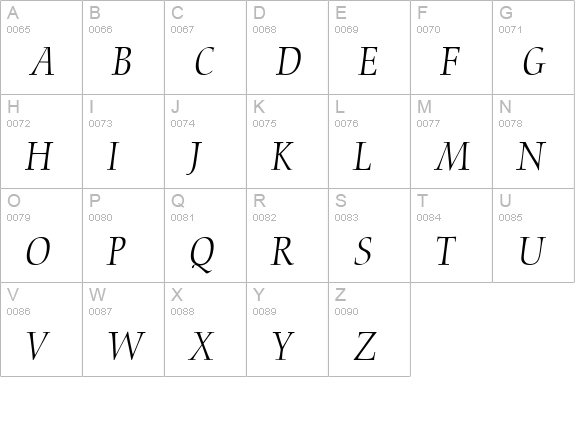
Conquista Light SSi Light Italic Font Details
Conquista Light SSi Light Italic is a refined, elegant, italic variant in the Conquista typeface family \xE2\x80\x94 well suited to elegant body text, refined sub-headings, and luxury branding.
Conquista Light SSi Light Italic font exudes elegance and sophistication with its delicate curves and graceful slant. This italic typeface is perfect for adding a touch of style to any design project, whether it be a wedding invitation, a logo, or a fashion magazine layout. And the best part? Conquista Light SSi Light Italic font is available for free download at FontsMarket.com! This means you can easily access this stunning font and use it in your creative endeavors without any cost. Don't miss out on the opportunity to enhance your designs with this beautiful typeface - download Conquista Light SSi Light Italic font today and let your creativity shine!